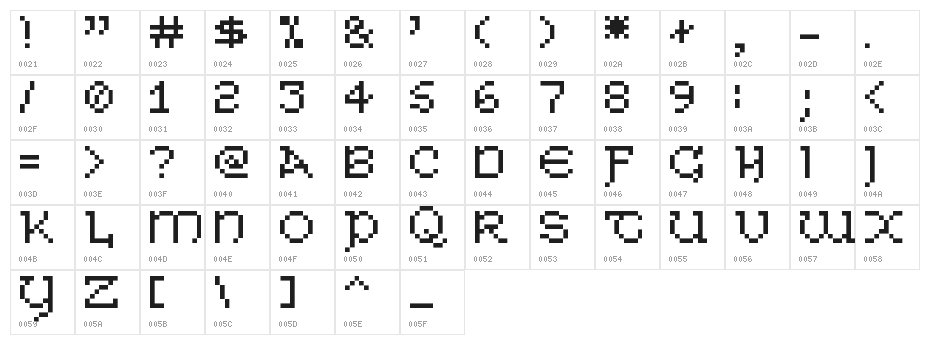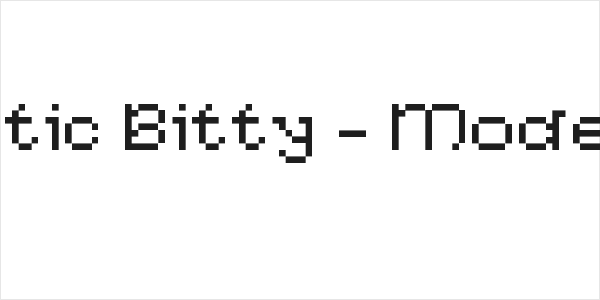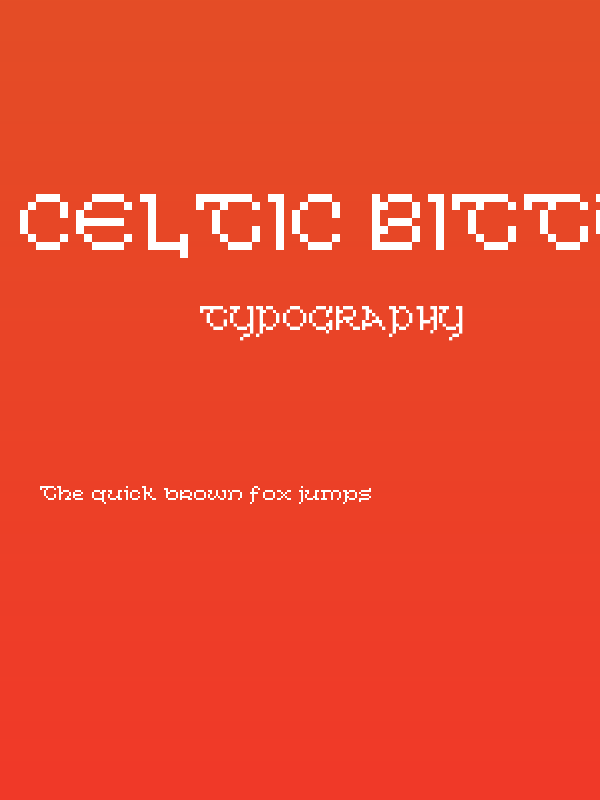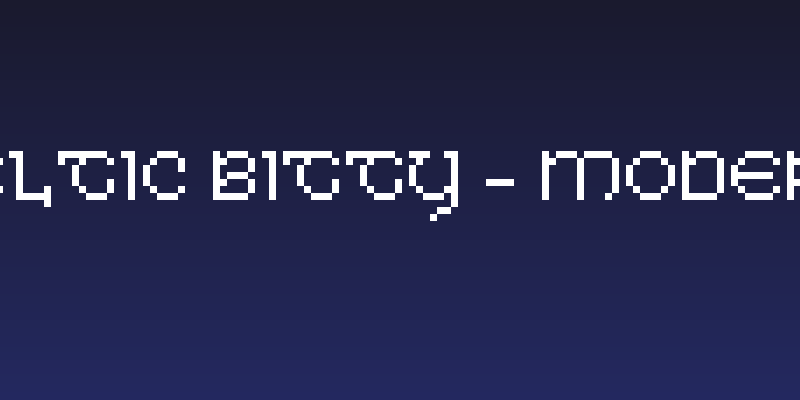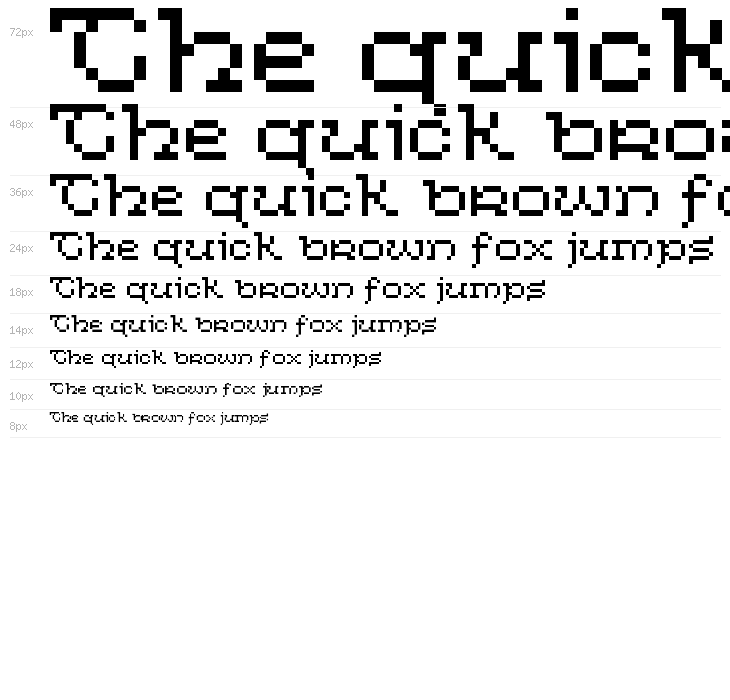
Celtic Bitty - Modern Font
Celtic Bitty - Modern Description
This font features a pixelated, blocky style reminiscent of early digital displays and retro video games. Each character is constructed with a grid-like precision, giving it a distinctly modern yet nostalgic feel. The uppercase and lowercase letters maintain a consistent height, contributing to a uniform appearance. Numbers and special characters follow the same pixelated design, ensuring a cohesive look across all text elements. This font's geometric structure and clear legibility make it suitable for both digital and print media, especially where a retro or tech-inspired aesthetic is desired.